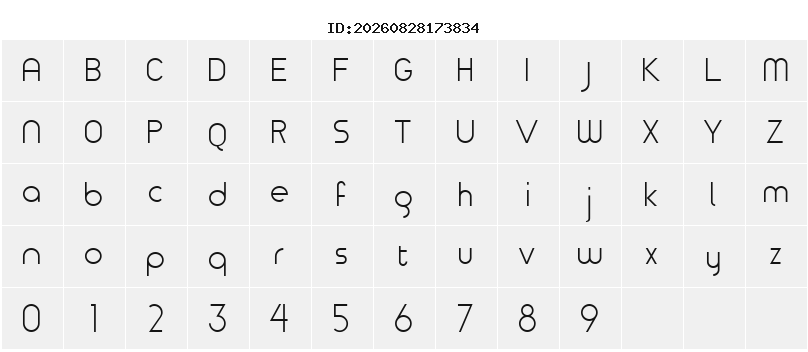
TimeBurner Preview
• Font Name: TimeBurner
• Font ID: NimaVisual: TimeBurner: 2012
• Full Font Name: TimeBurner
• Version: Version 1.003 2012
• PostScript Name: TimeBurner
• Character Count: 208
• Designer: NimaVisual
• Manufacturer: Andres Moreno Walter
About TimeBurner.ttf
TimeBurner.ttf is a modern, elegant sans-serif font designed for ultimate readability and visual harmony. Perfect for branding, headlines, web design, and print materials.